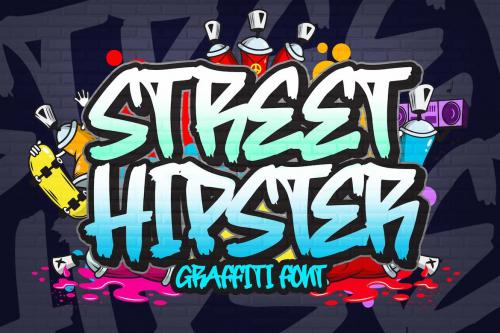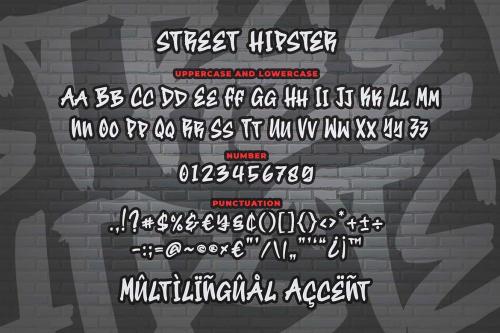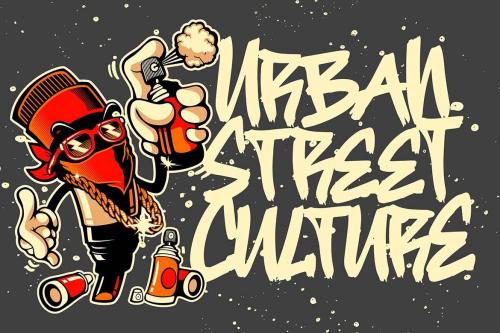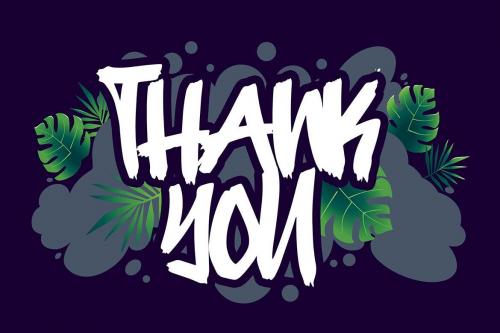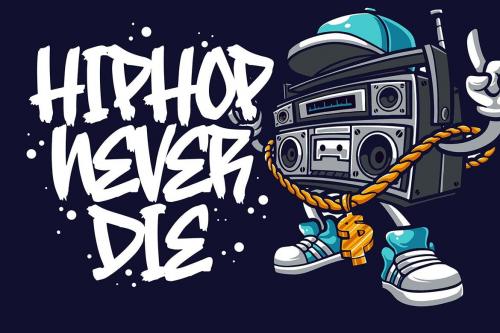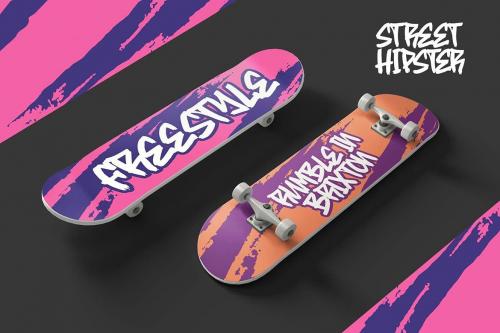
Street Hipster Graffiti Font
Introducing of our new product the name is Street Hipster Graffiti Font. Street Hipster inspired by graffiti style with a fun theme very good for graffity poster, Hip Hop music, kids poster, flyer, childrenbook, cartoon, comic etc
**MULTILINGUAL ACCENT :**
ØÆøæ¢ÐŒœÁĂÂÀÄĄÅÃǼĆČÇĈĊĎÉĔĚÊËĖÈĘĞĜĢĠĤÍĬÎÏİÌĮĨĴĶĹĽĻĿŃŇŅÑÓŎÔÖÒŐǾÕŔŘŖŚŠŞŜȘŤŢÚŬÛÜÙŰŲŮŨẂŴẄẀÝŶŸỲŹŽŻáăâäàąåãǽćčçĉċďéĕěêëėèęğĝģġĥíîïìįĩĵķĺľļŀńʼnňņñóŏôöòőǿõŕřŗśšşŝșťţŭûüűùųůũẃŵẅẁýŷÿỳźžż
**FEATURES :**
* Uppercase
* Lowercase
* Number
* Punctuation
* Multilingual
* PUA Encode
* Opentype